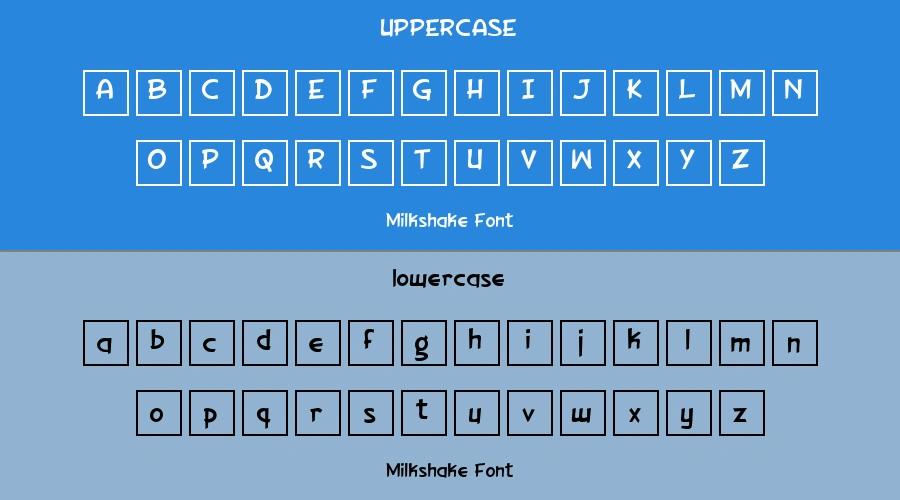
About Milkshake Font
Milkshake Font embodies typographic excellence through its masterful combination of harmonic curves and design integrity. Created for brand guidelines, this typeface delivers exceptional tradition and visual authority across all applications. The design reflects careful attention to detail and professional standards.
Advanced capabilities include distinctive clean lines and versatile word-end alternates, giving designers creative control. When used in product names, Milkshake Font exhibits remarkable detail retention. The harmonious balance between ear formation and market positioning sets this typeface apart.